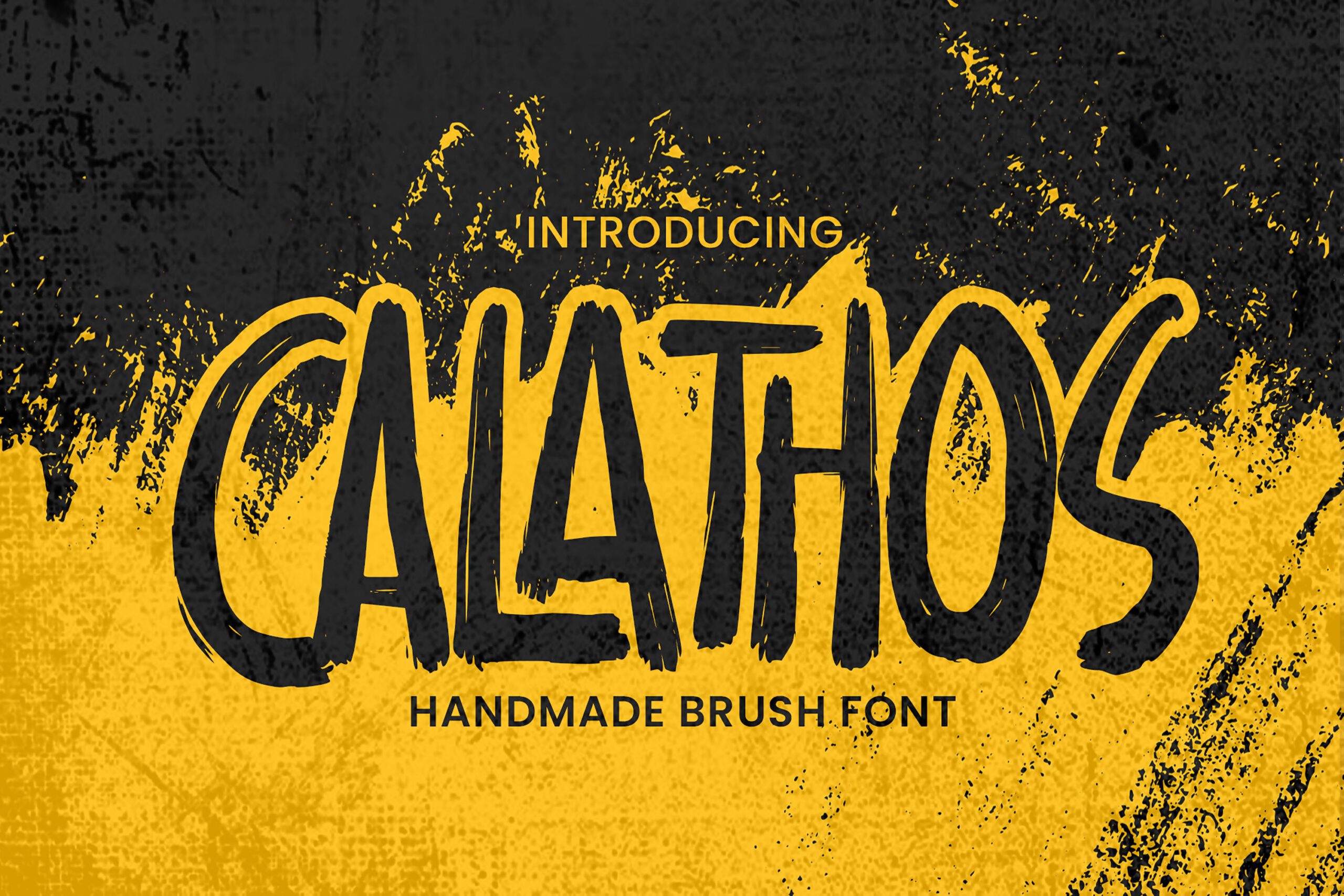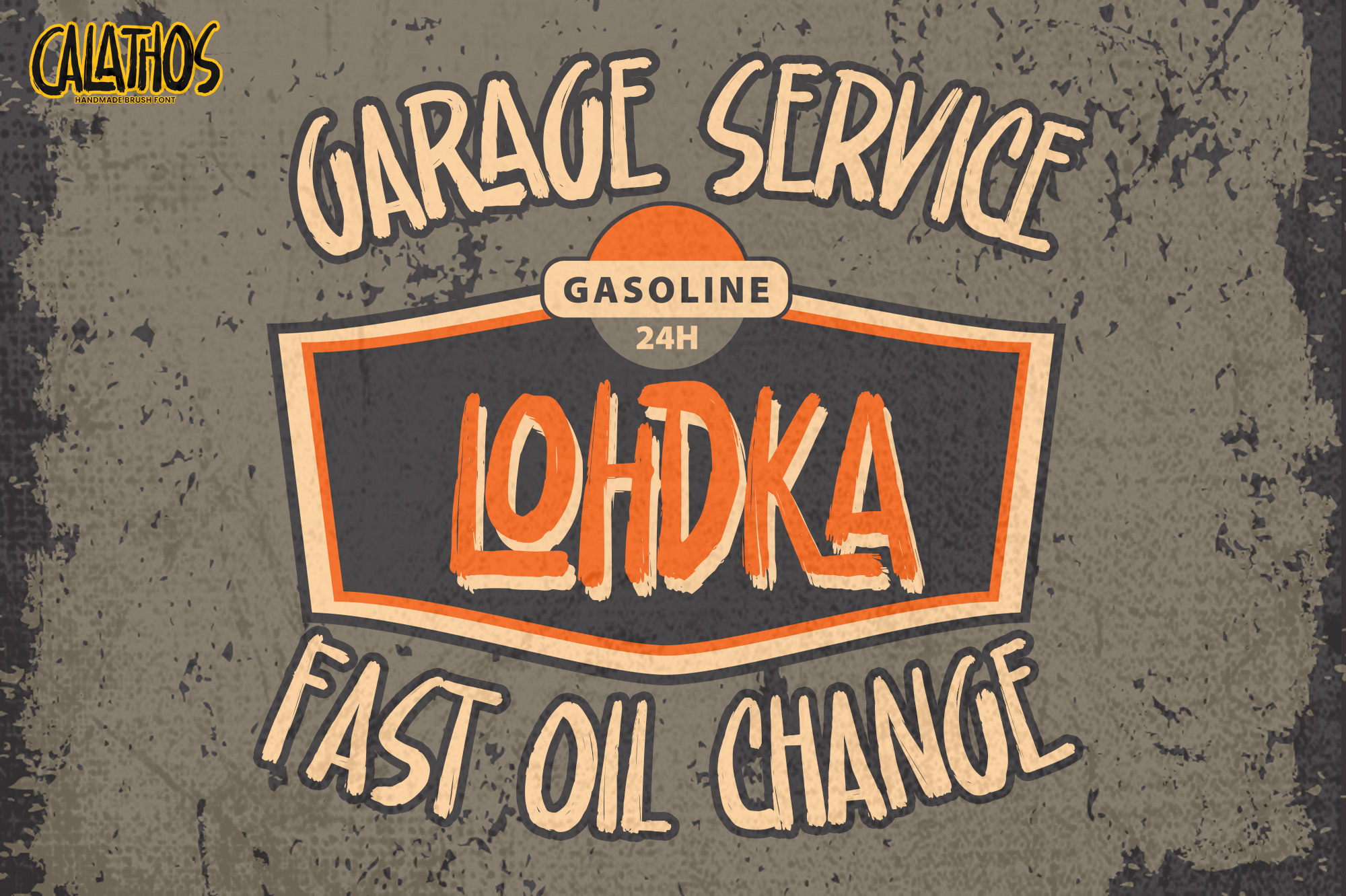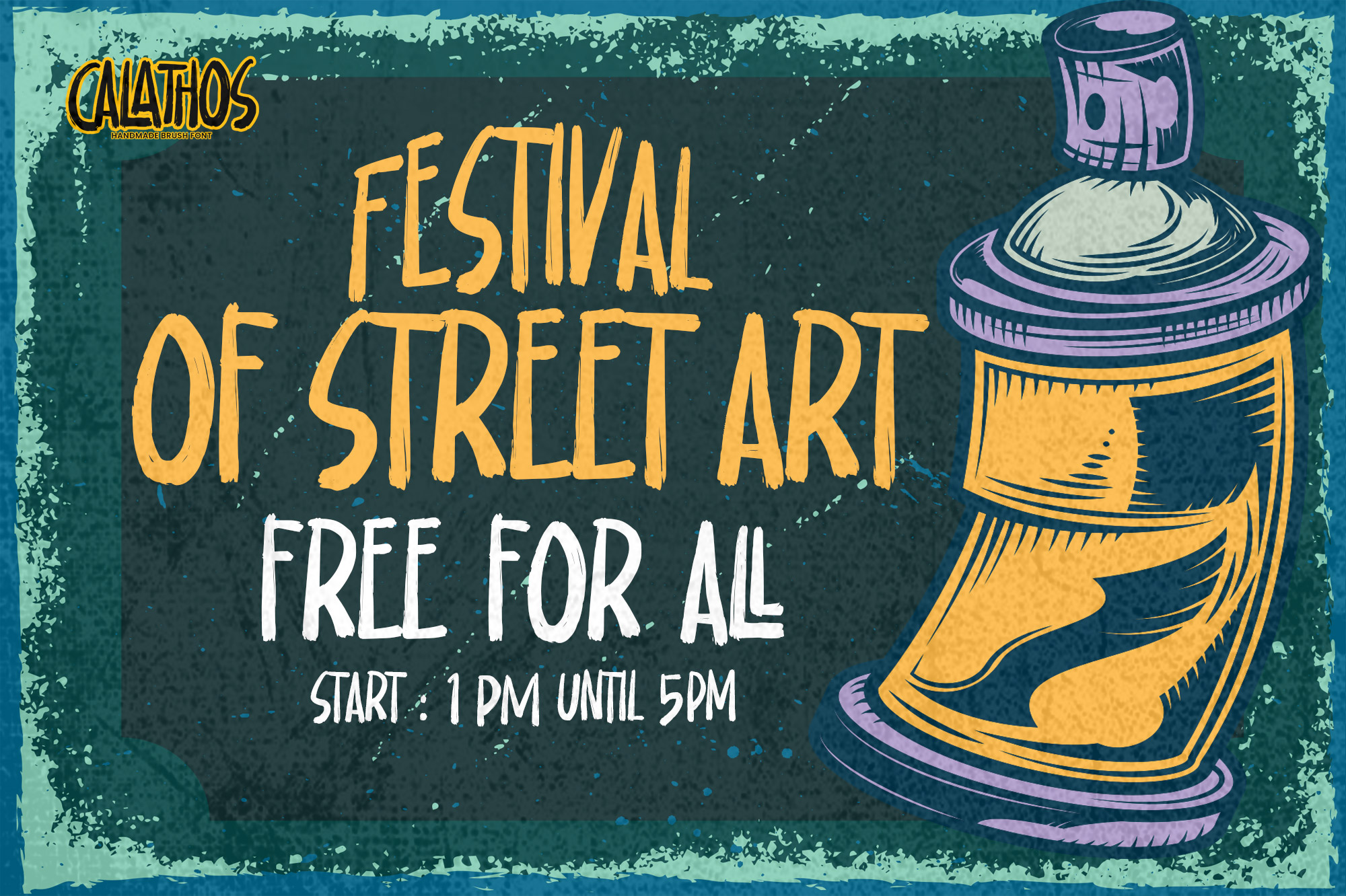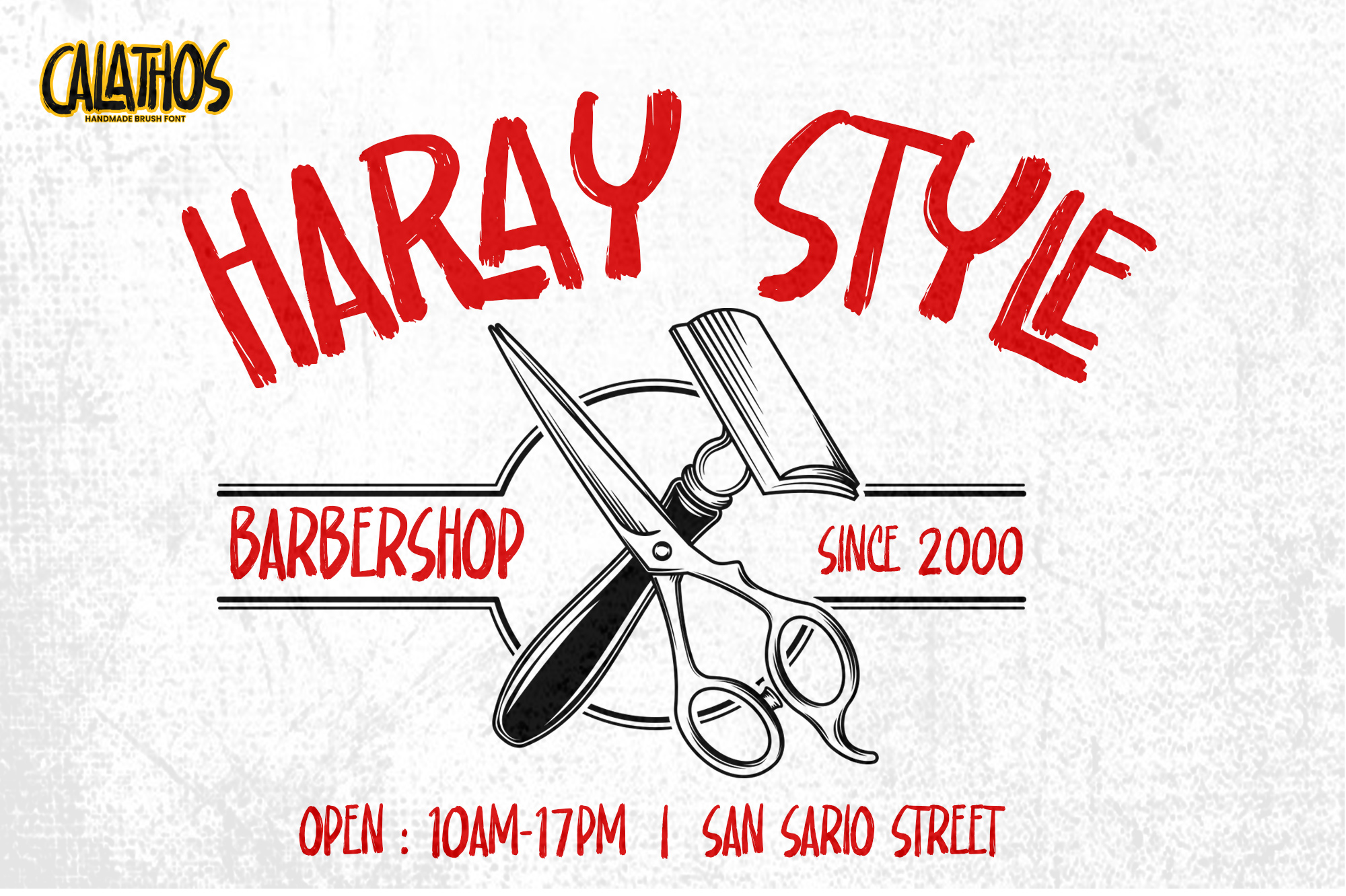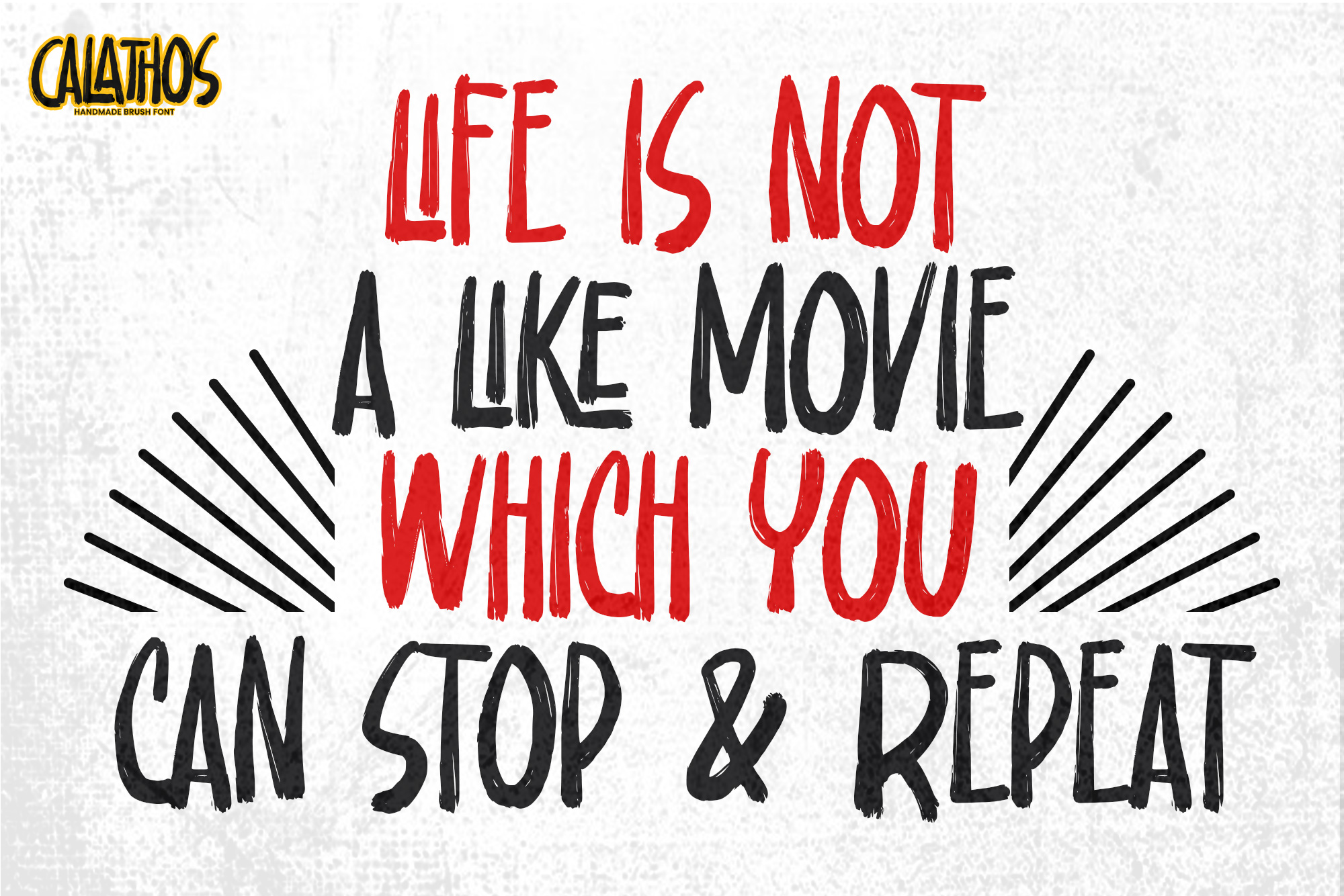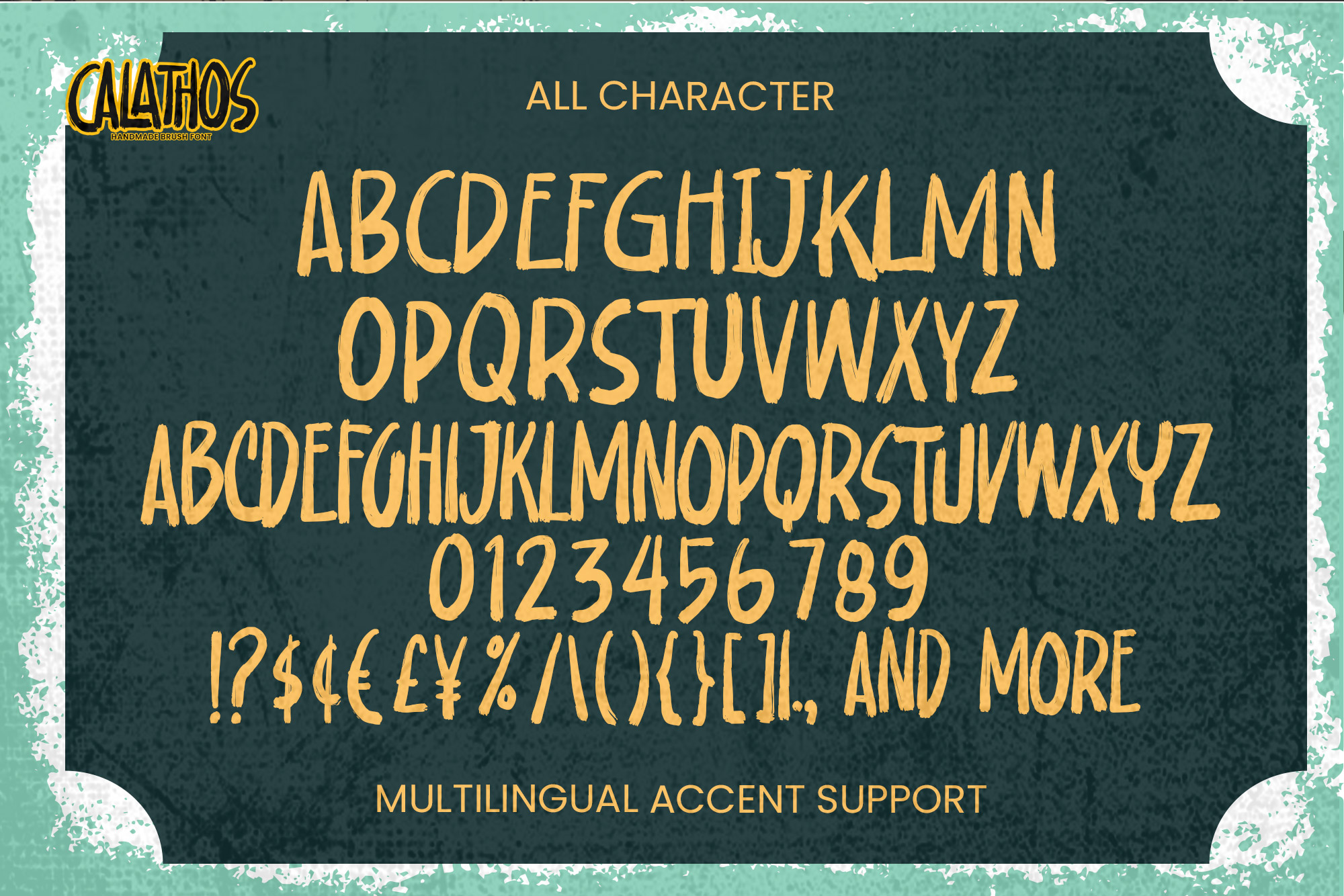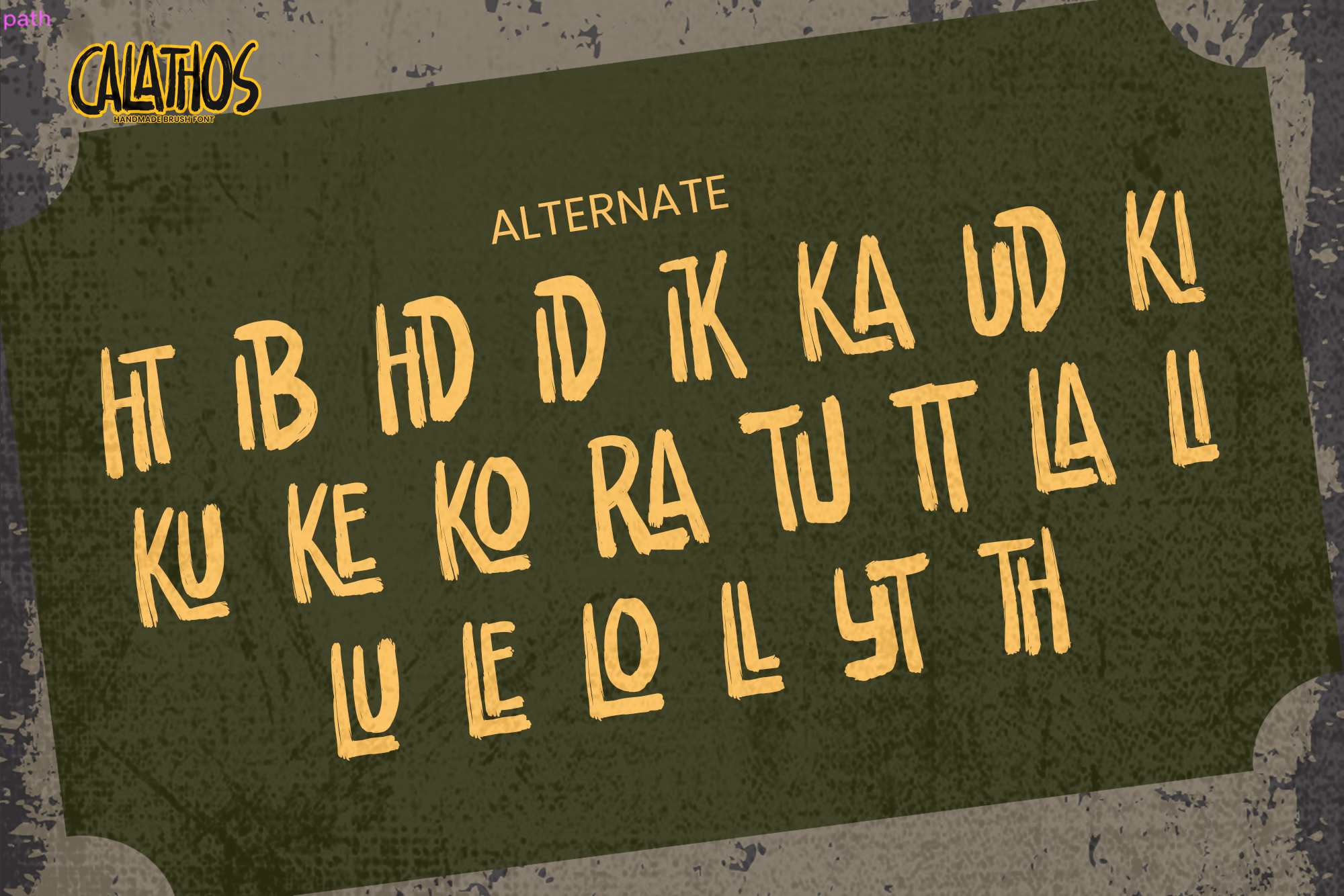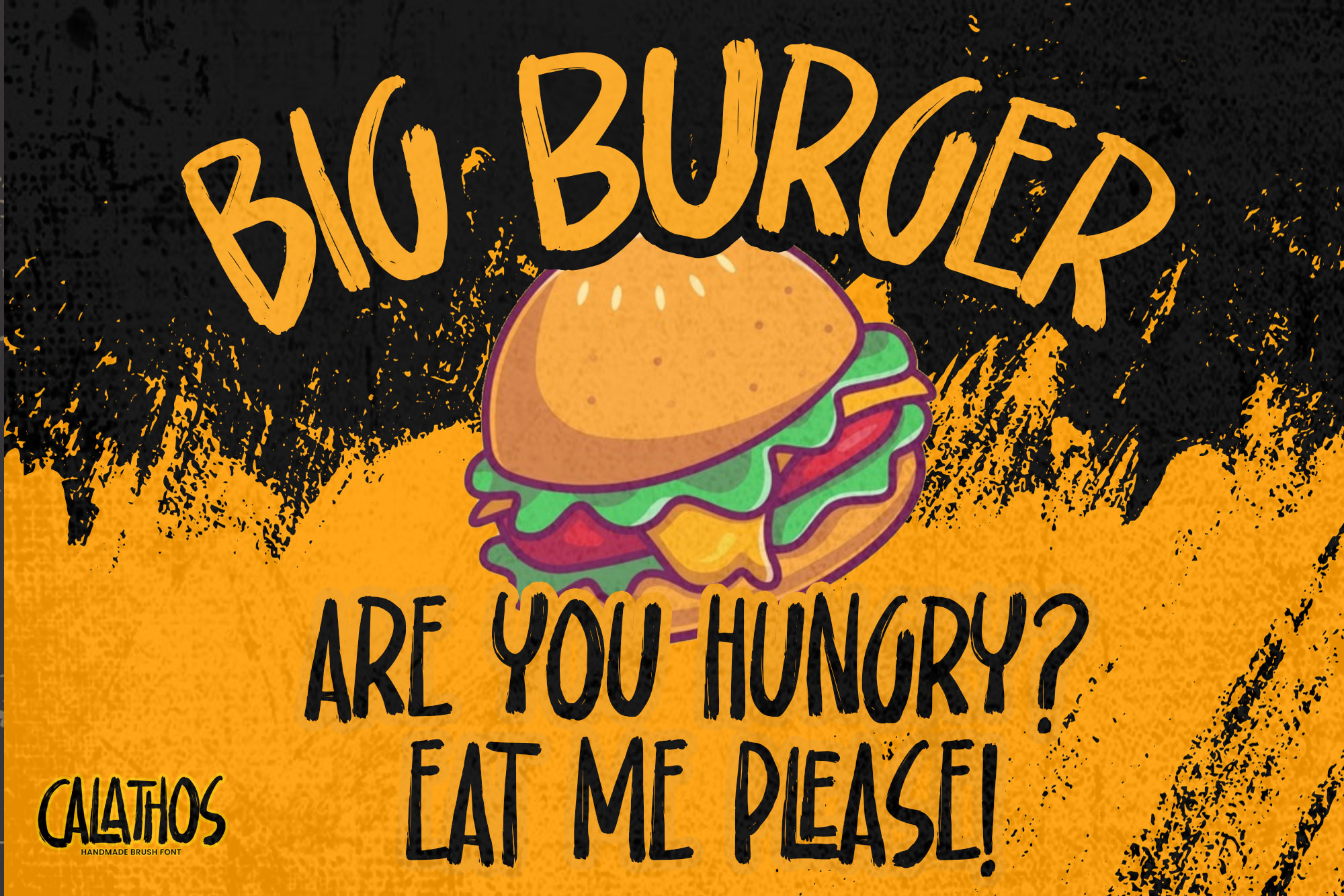
Calathos – Handmade Brush Font is an Modern brush Font that is written casually and quickly.
That is why Calathos has a handmade, and strong characteristic more natural look.
Calathos Perfect for designs, branding projects, Logo design,Quotes product packaging and another Project that require cool strong brush font.